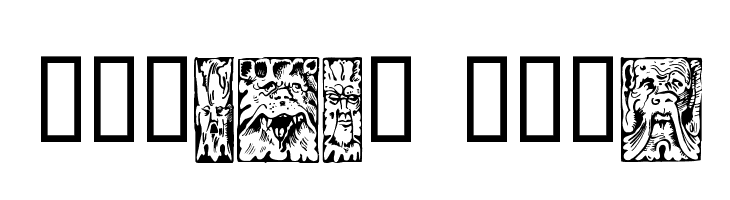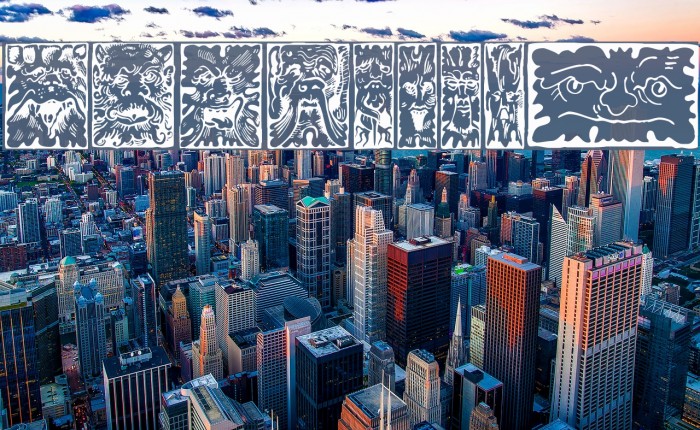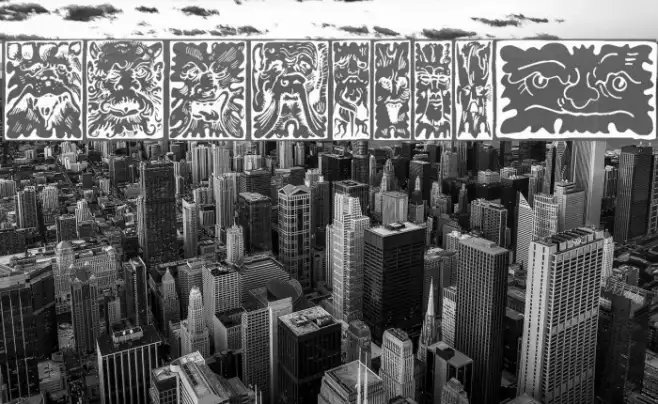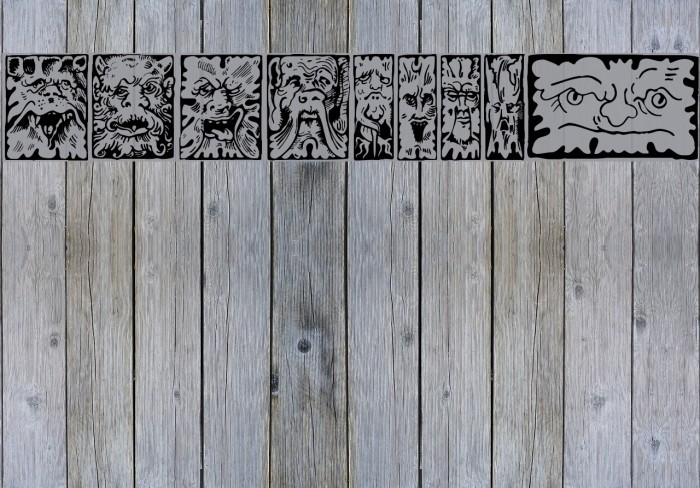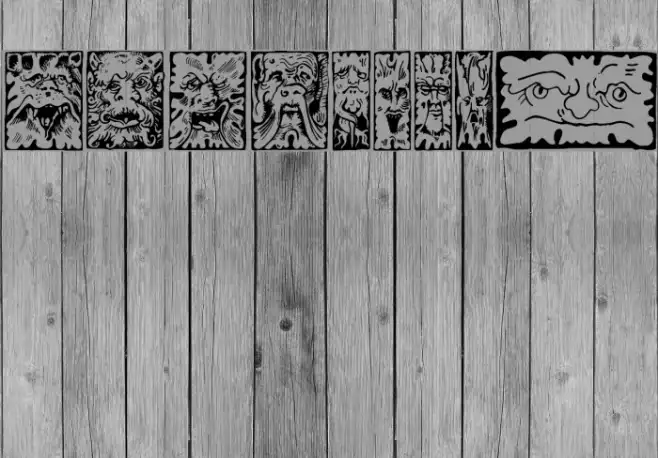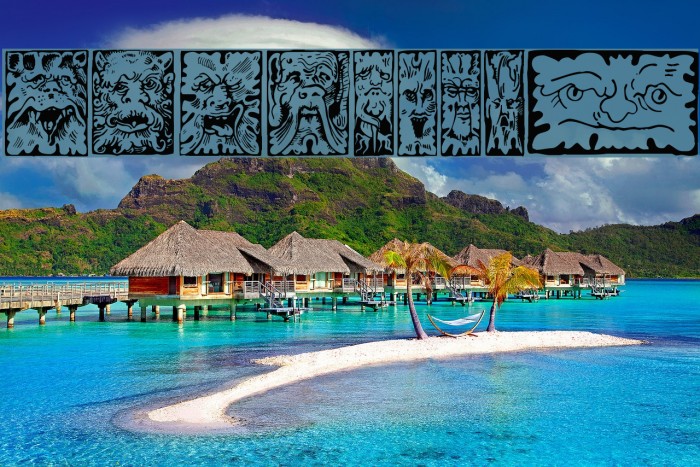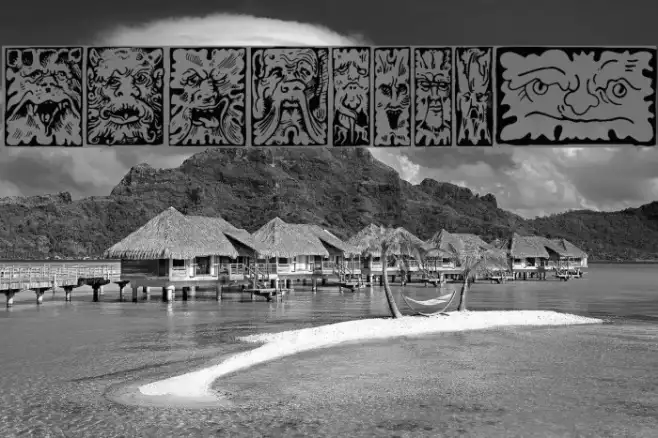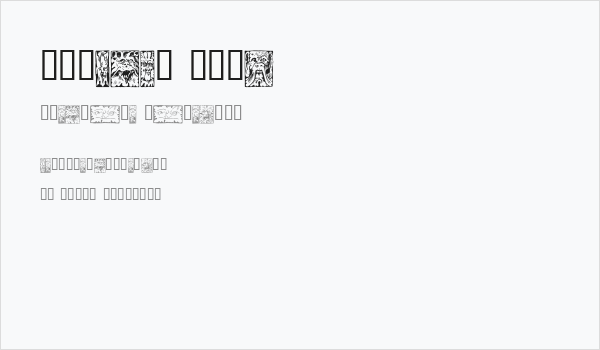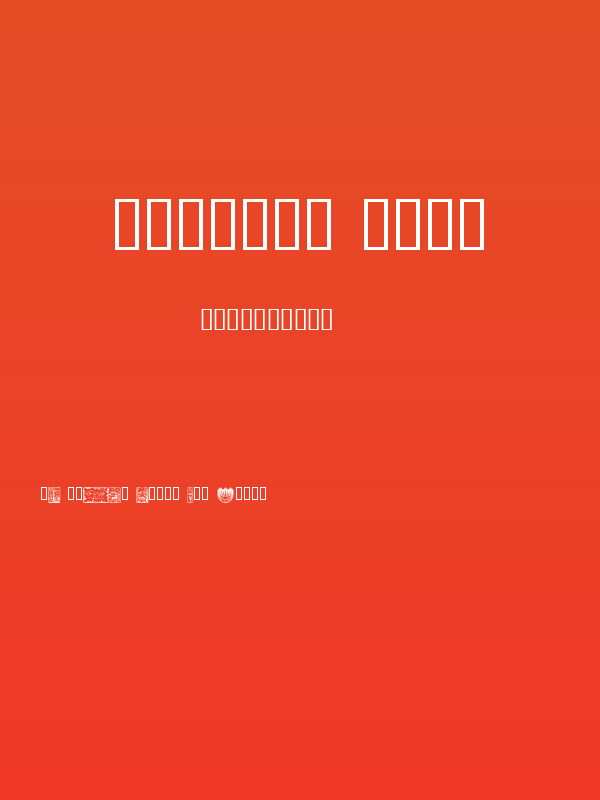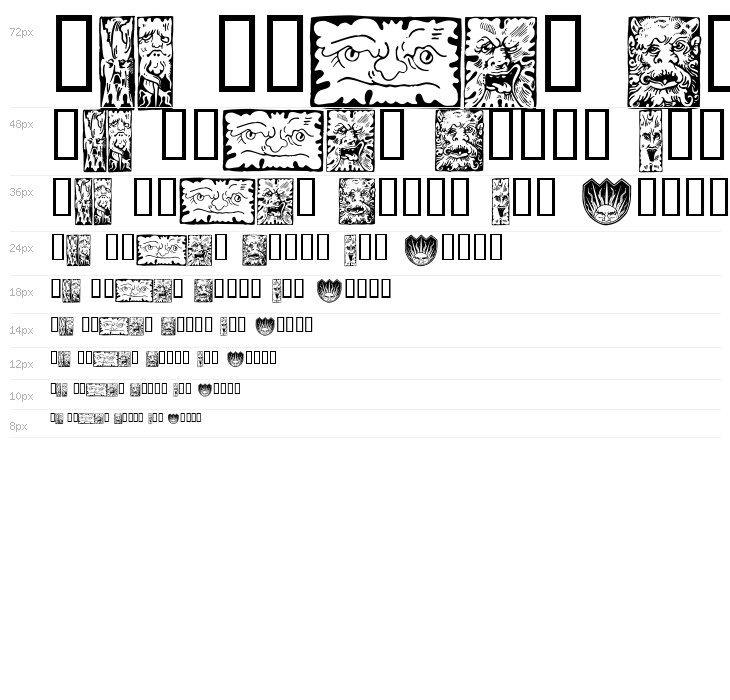
Mythago Wood Font
Mythago Wood Description
This font is a highly decorative and artistic typeface featuring intricate and detailed illustrations within each character. The characters are designed with elaborate mythical and natural motifs, giving them a unique and fantastical appearance. Each letter is encased in a rectangular frame, adding to the ornate and structured look. The font's style is reminiscent of ancient wood carvings or mythical tapestries, making it stand out as a piece of art in itself. The overall design is bold and eye-catching, perfect for creating a dramatic and mystical atmosphere in any project.
| Proposed Projects | Ideal for fantasy book covers, themed event posters, artistic projects, and decorative signage. |